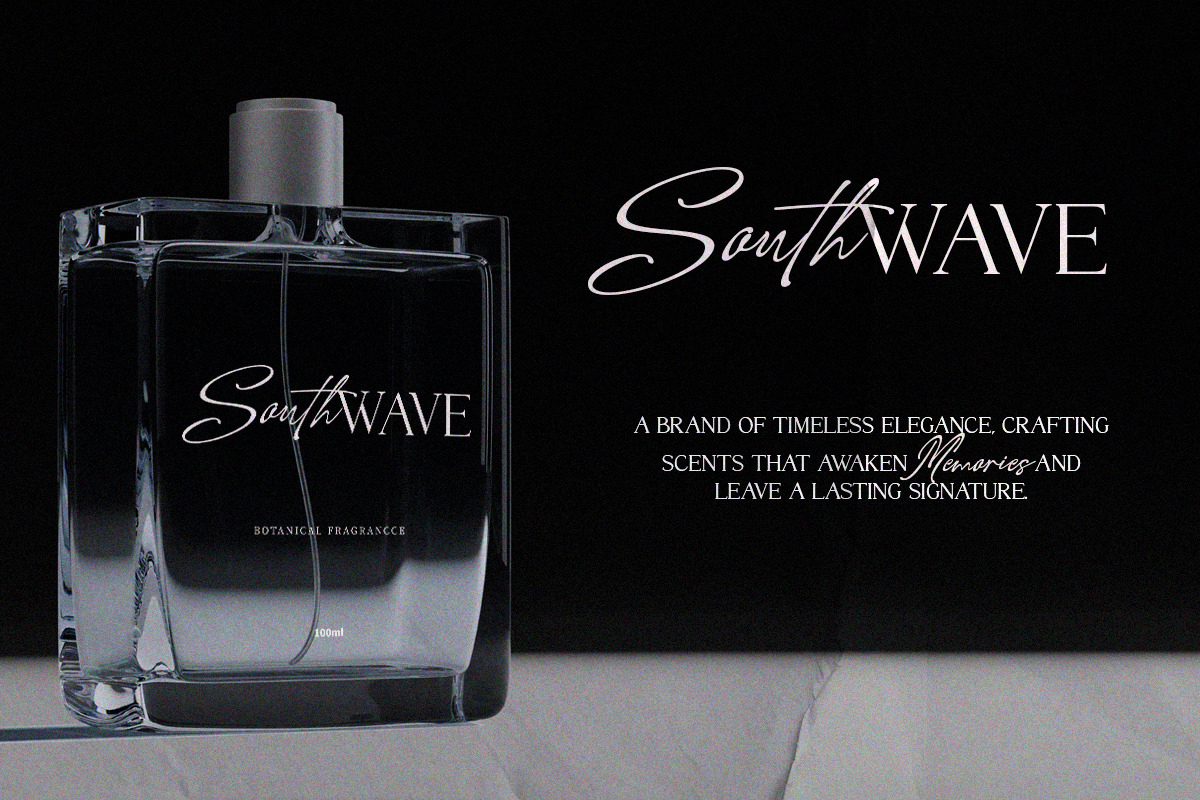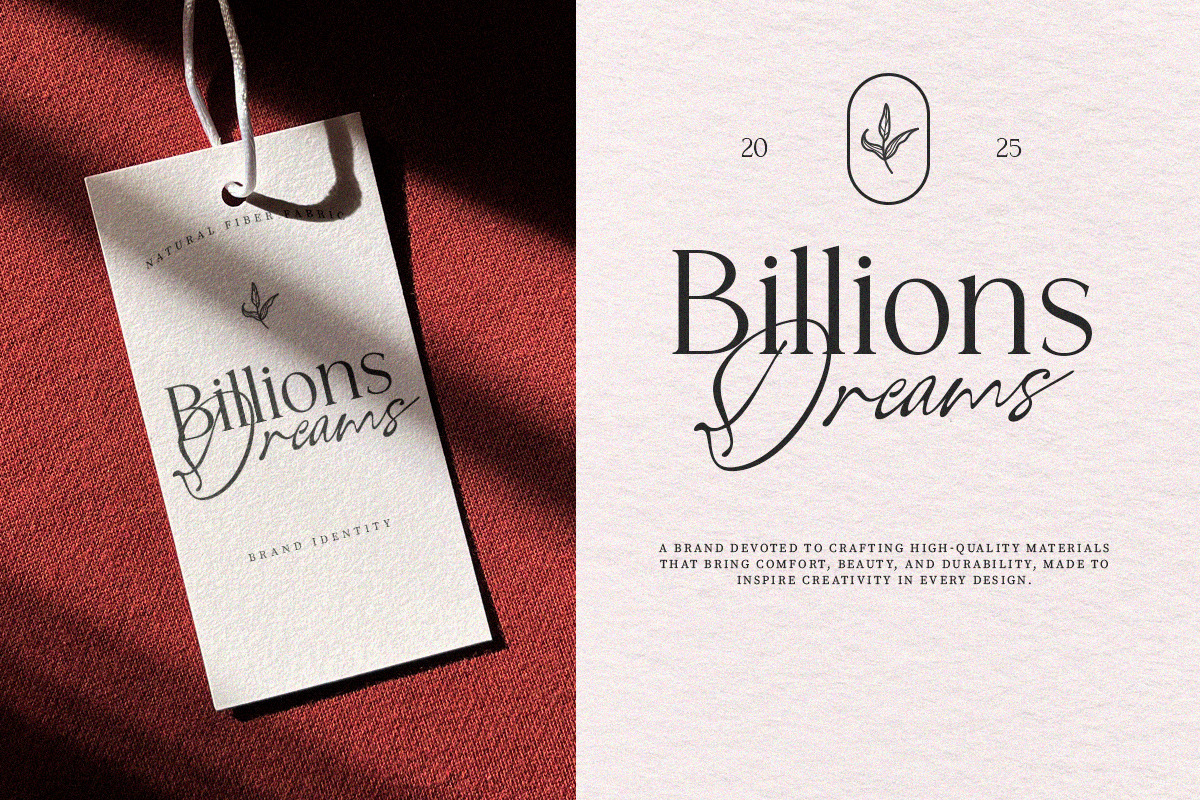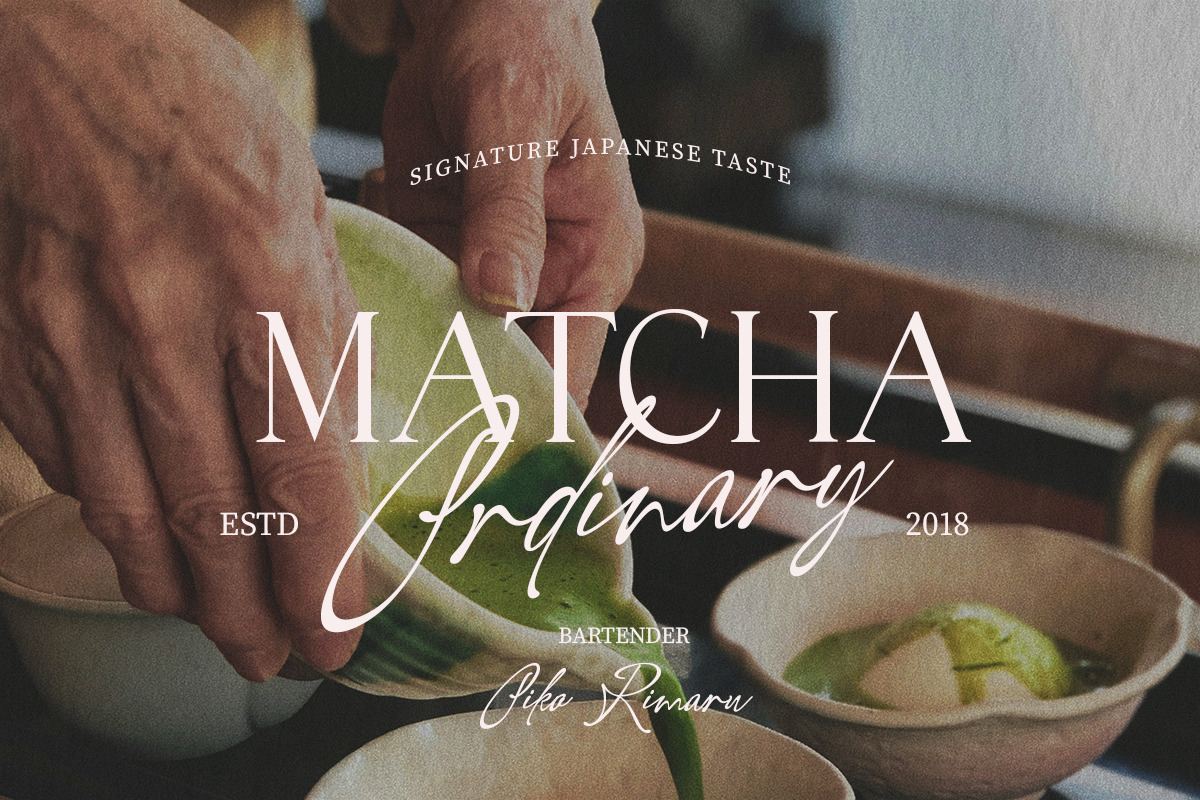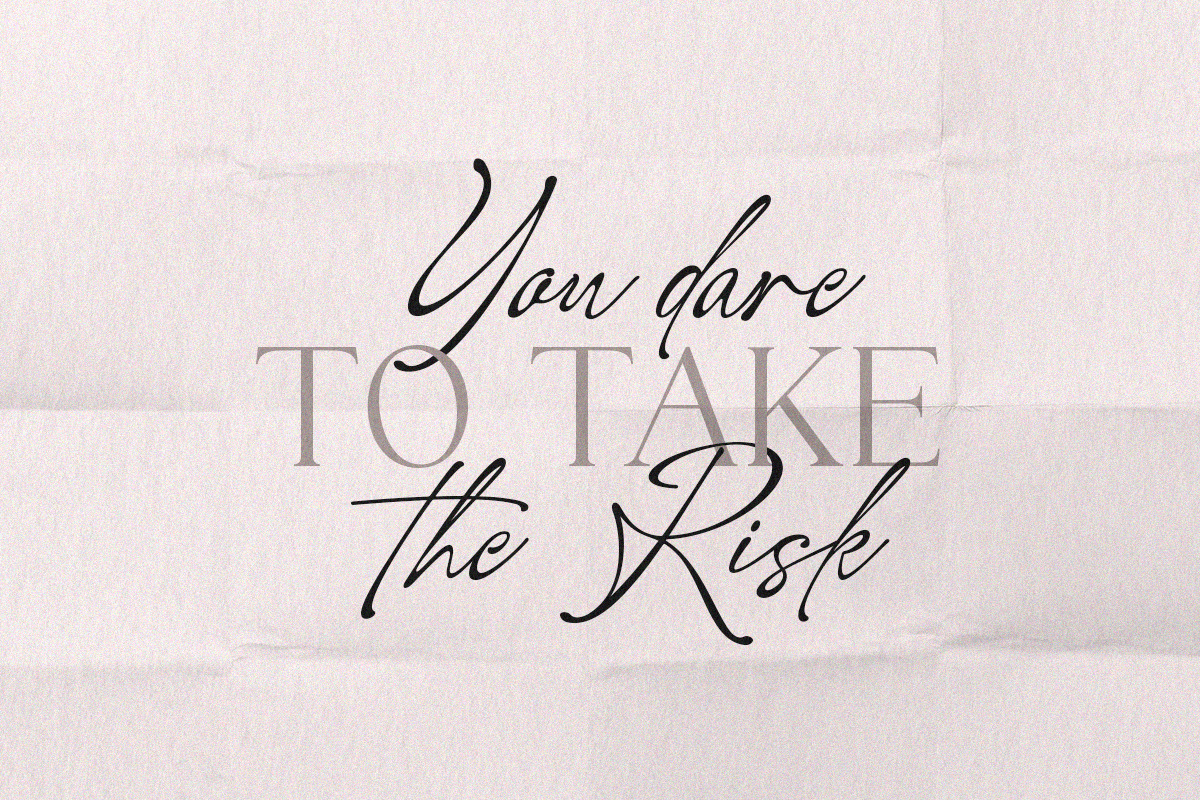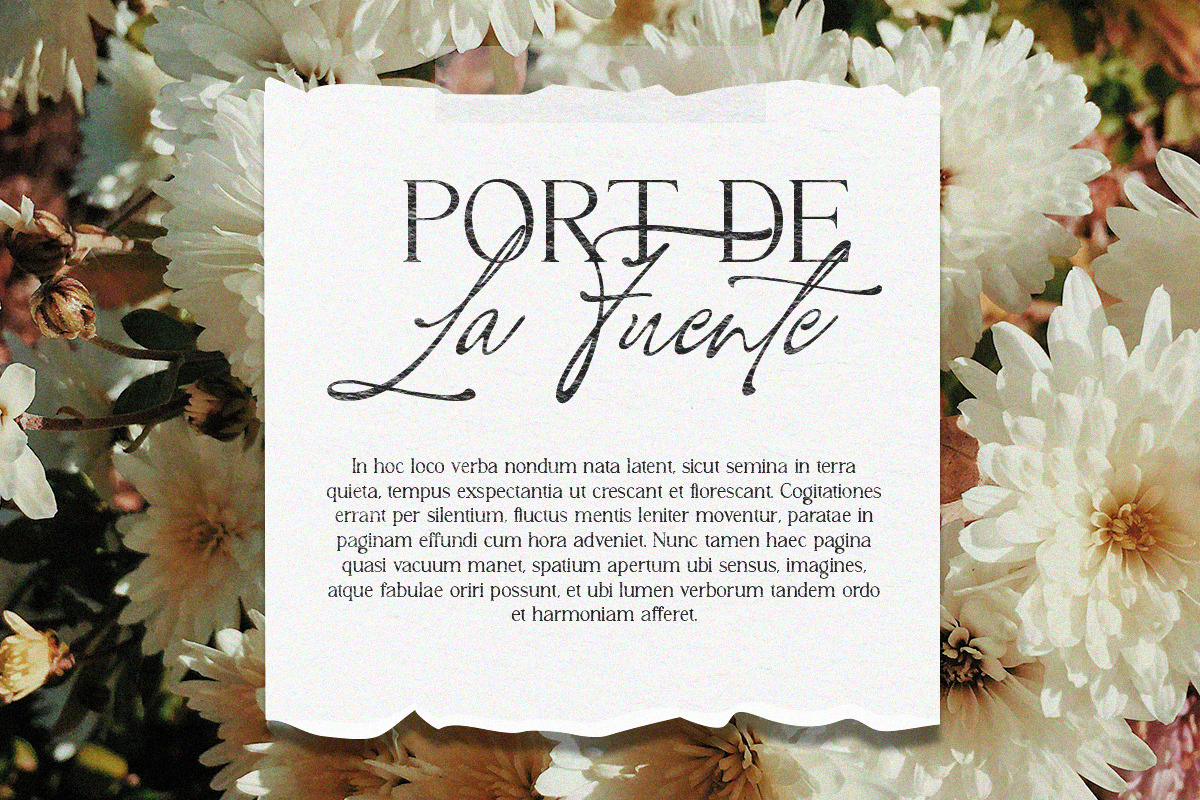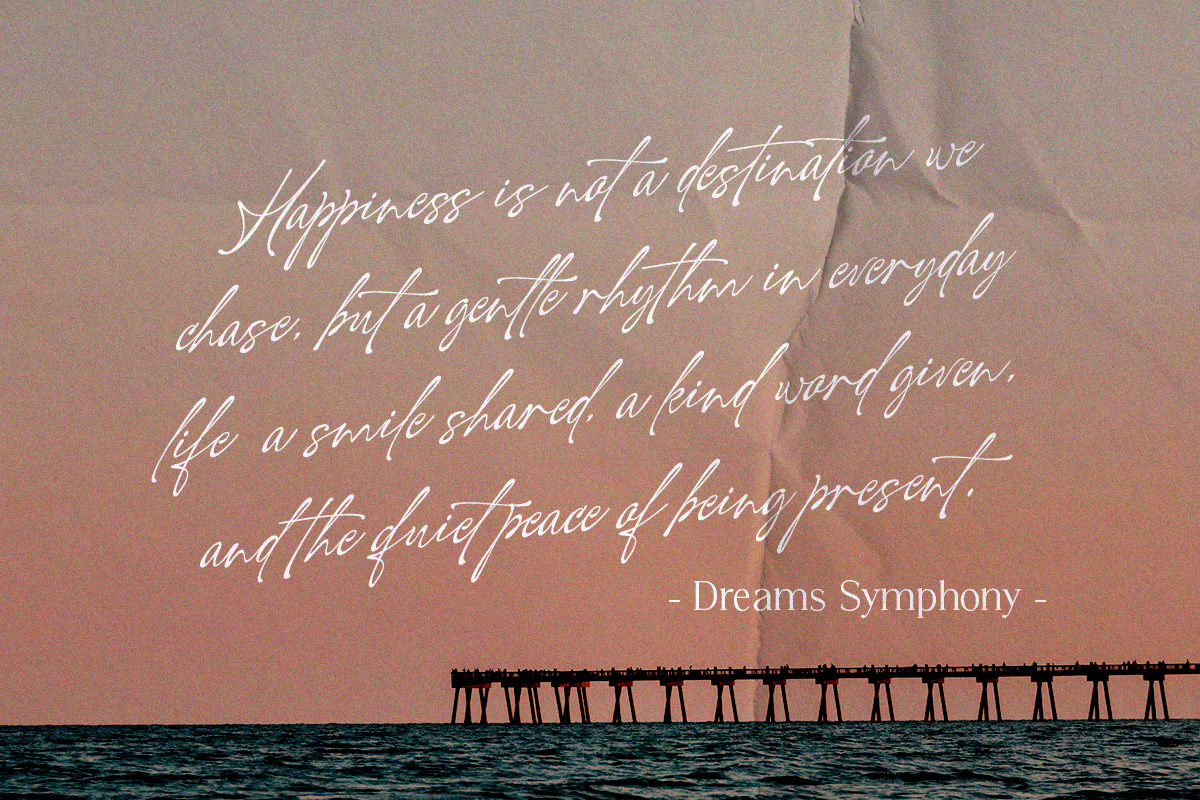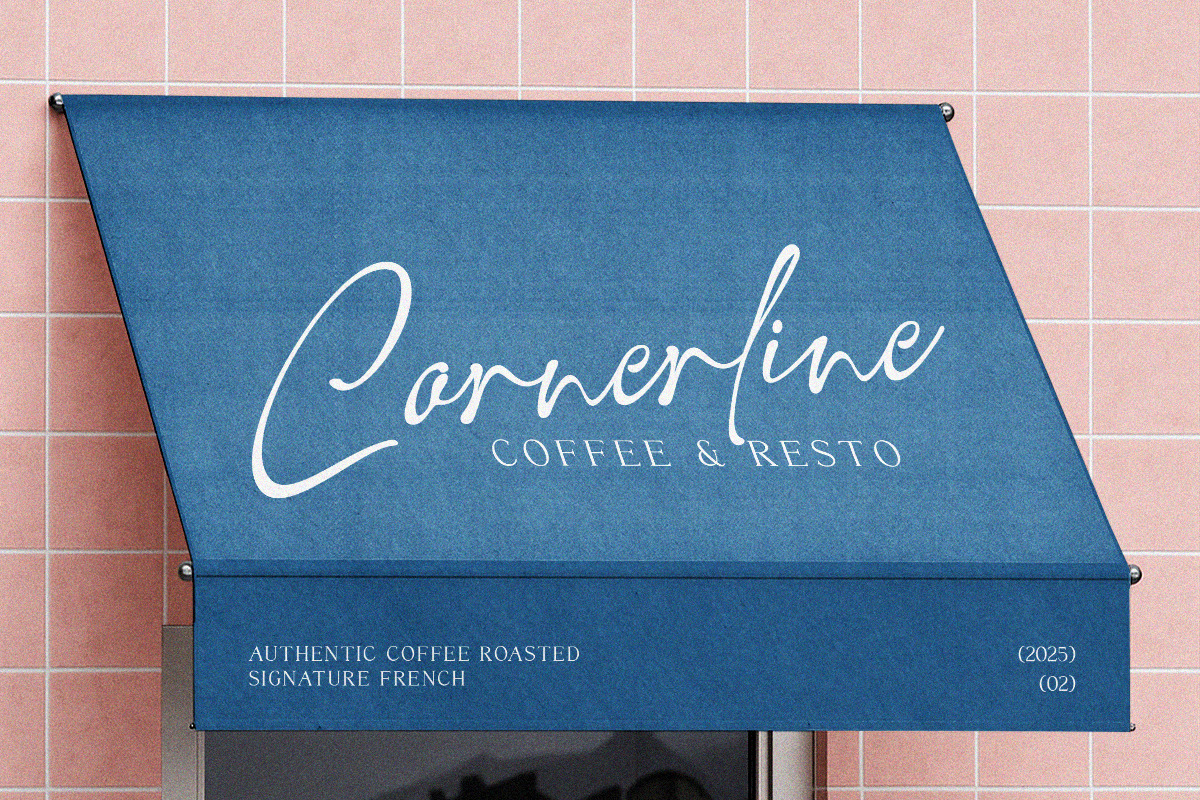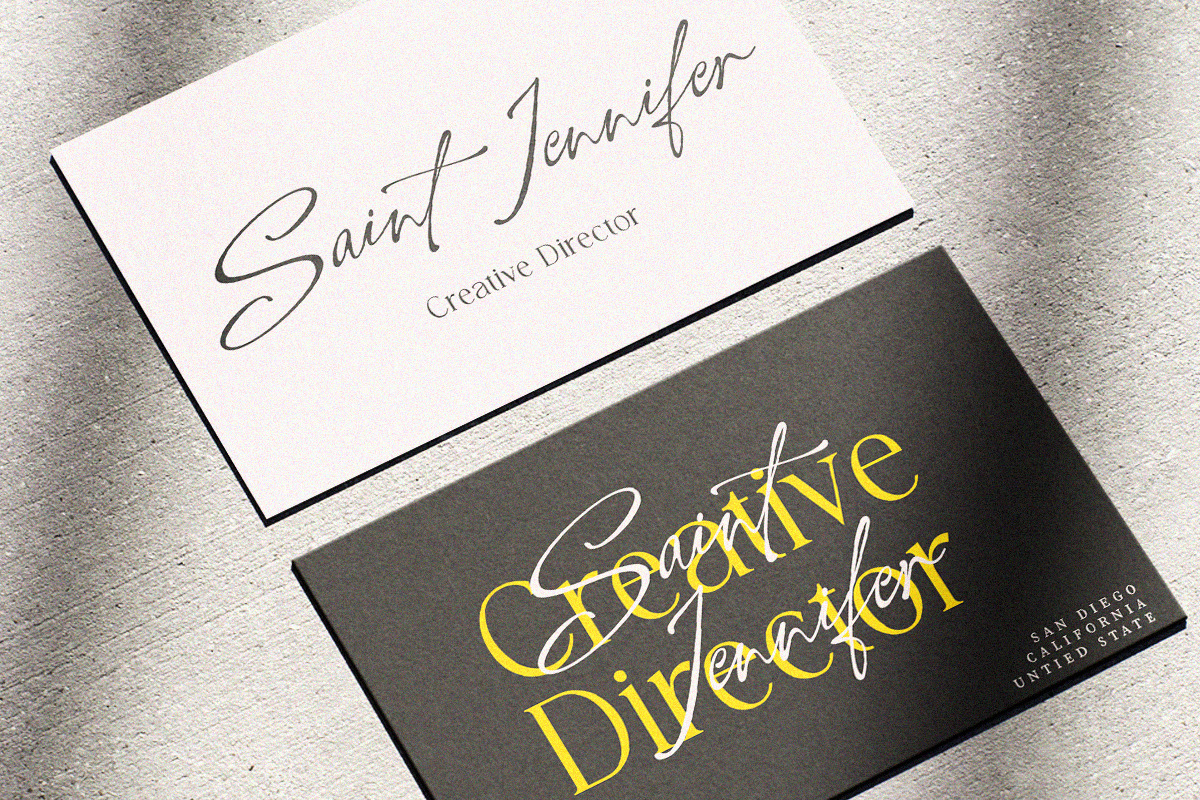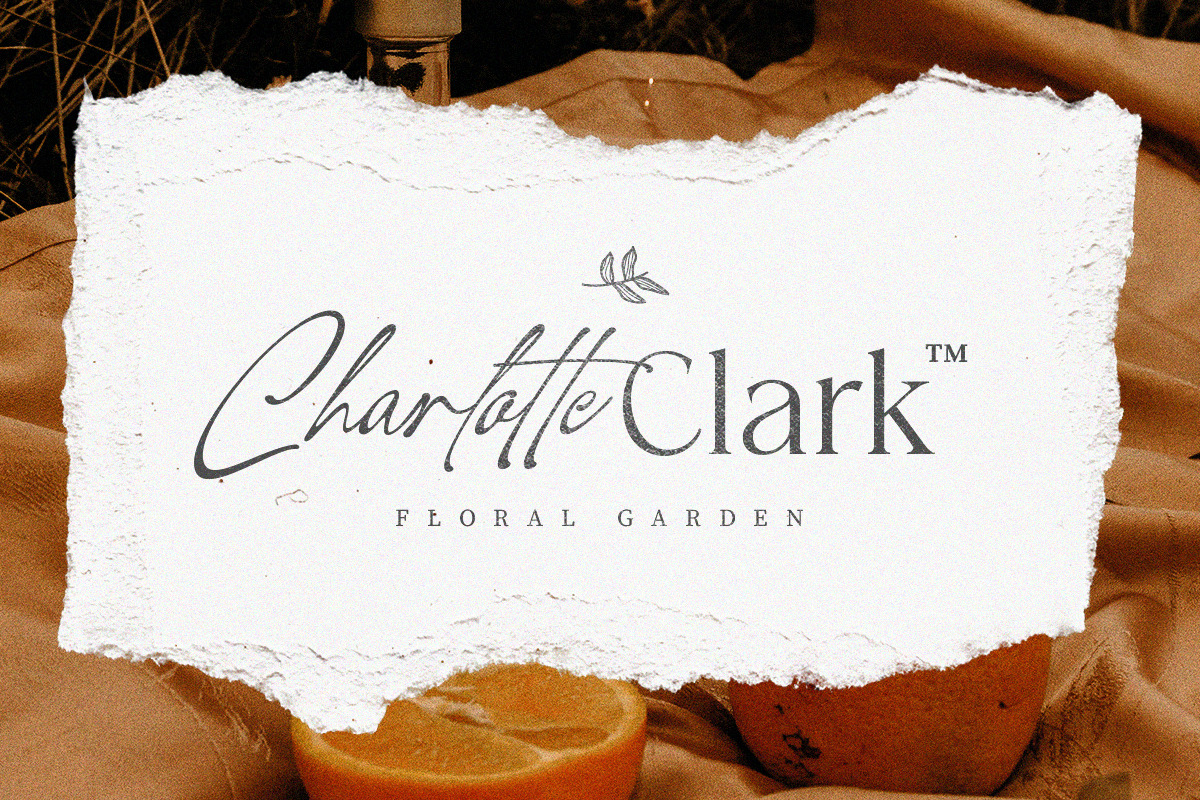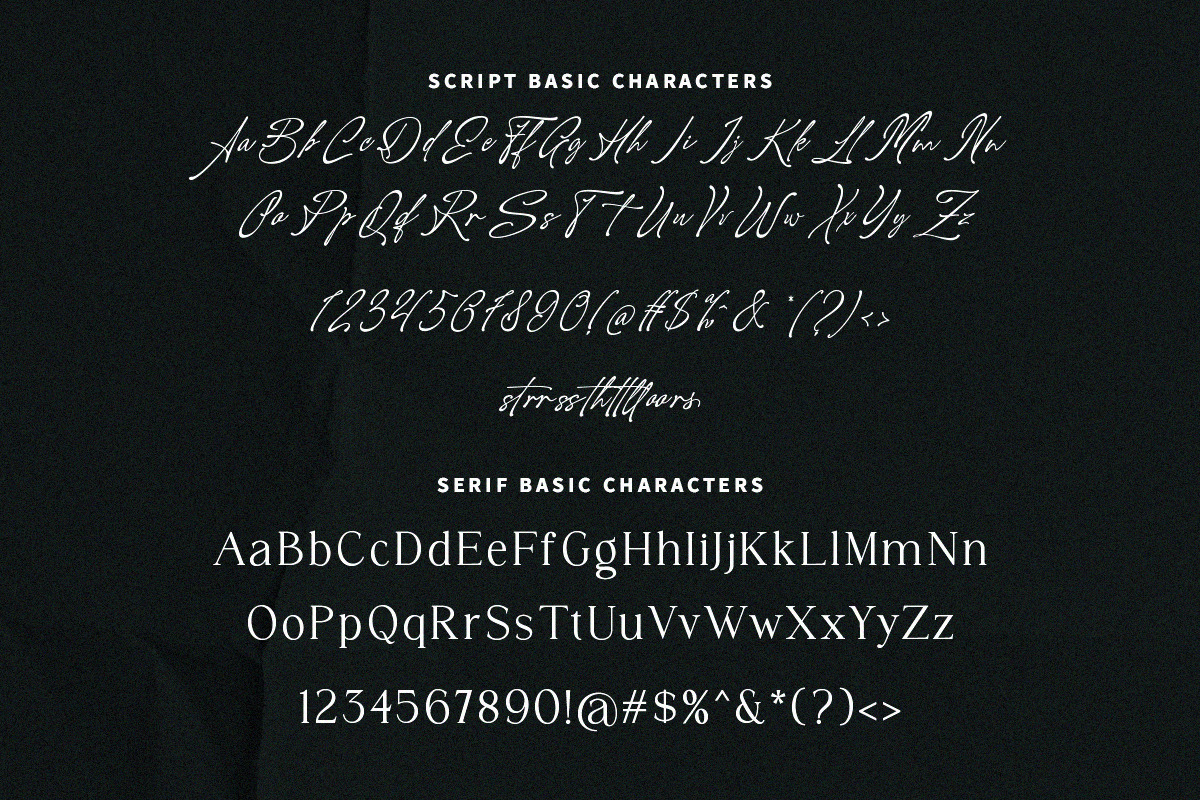
Dreams Symphony
Introducing Dreams Symphony, a harmonious font duo crafted to bring elegance and versatility to your creative projects. This duo features two complementary styles: Signature Script – A graceful handwritten style with smooth strokes, giving a natural and personal touch, perfect for names, signatures, and branding accents. Serif Typeface – A classic and refined serif with strong shapes and timeless character, designed for readability and professional use. Together, they form a perfect pair—blending softness and strength, artistry and clarity. Dreams Symphony works beautifully for logos, invitations, stationery, social media, packaging, magazines, and more. With this duo, you don’t just design—you compose a visual symphony of elegance and dreams.